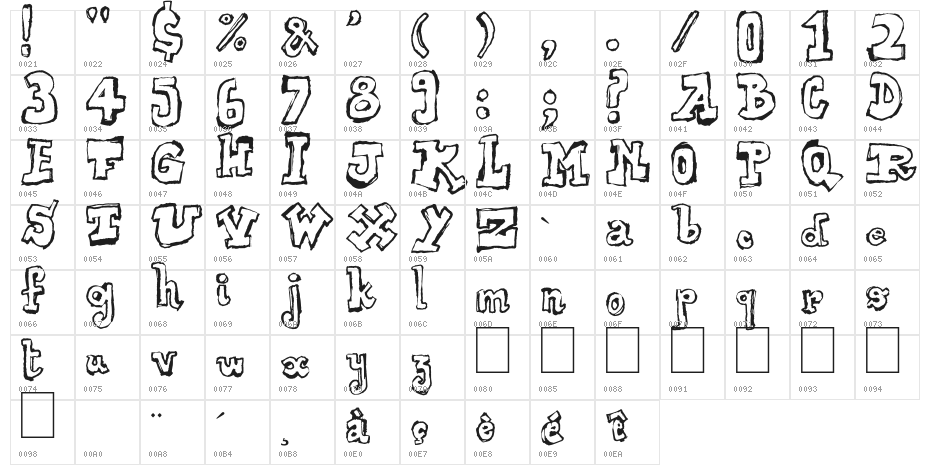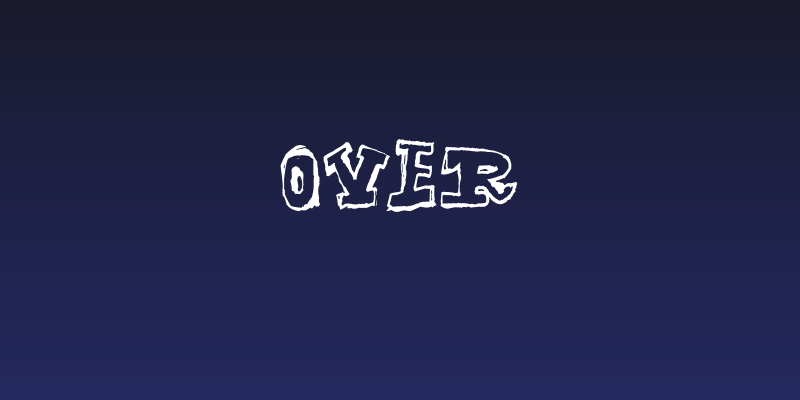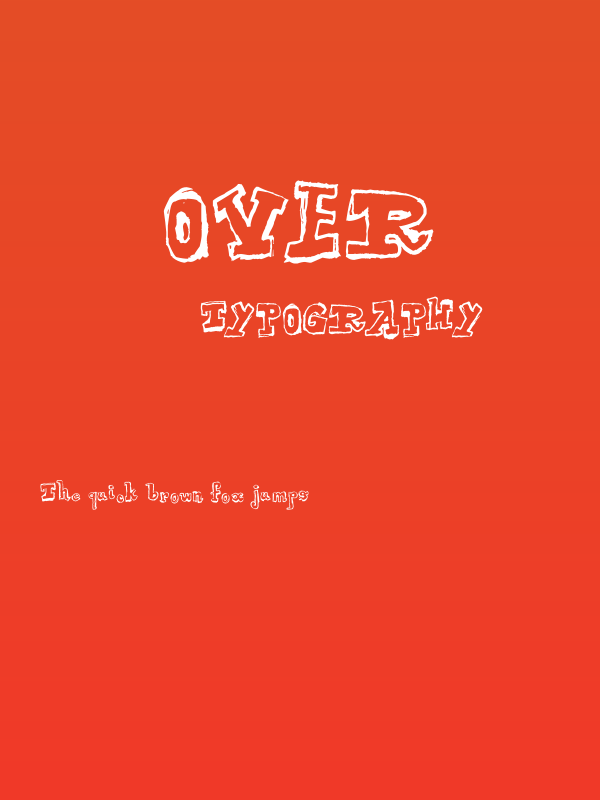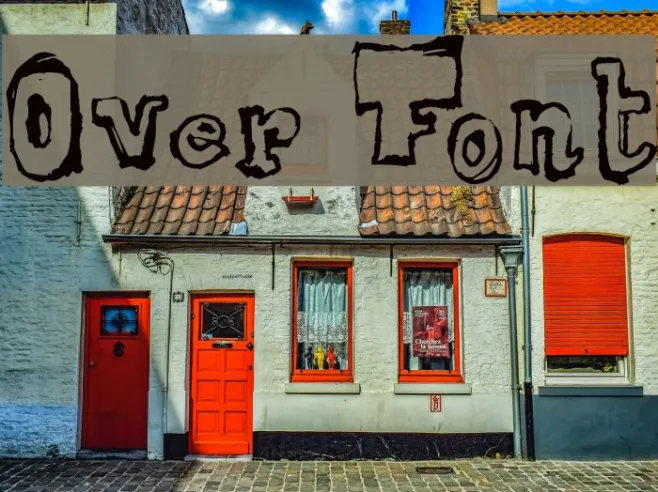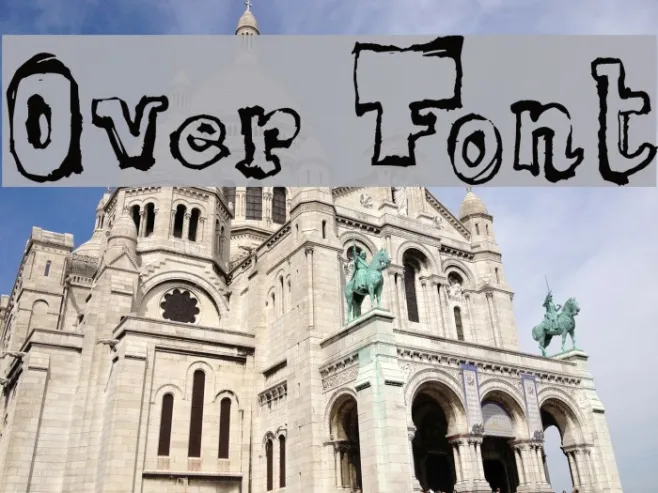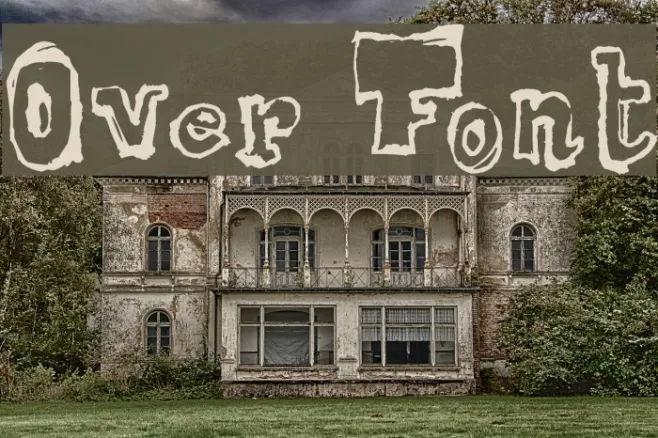
Over Font
Over Description
This font features a bold and playful design with a hand-drawn aesthetic. Each character is uniquely crafted with irregular edges and a slightly distressed look, giving it a quirky and artistic feel. The uppercase and lowercase letters maintain a consistent style, while the numbers and special characters add to the font's whimsical charm. The overall appearance is reminiscent of a comic or cartoon style, making it ideal for creative and informal projects.
OVER UPPERCASE
OVER LOWERCASE
OVER OTHER CHARS
| Overall Style | Playful, Artistic, Hand-drawn |
| Use Case | Headlines, Posters, Creative Branding |
| Proposed Projects | Ideal for comic books, children's books, posters, and creative branding projects. |